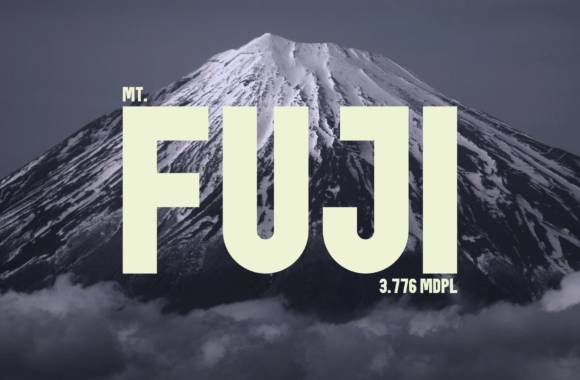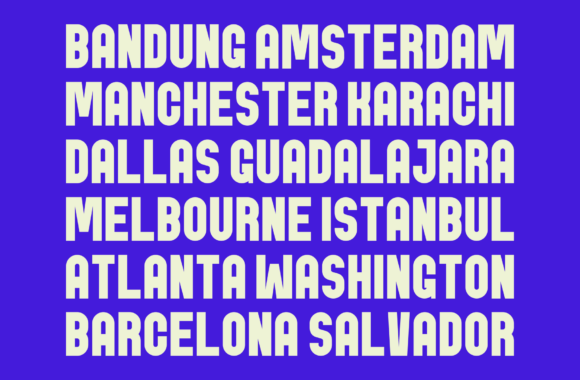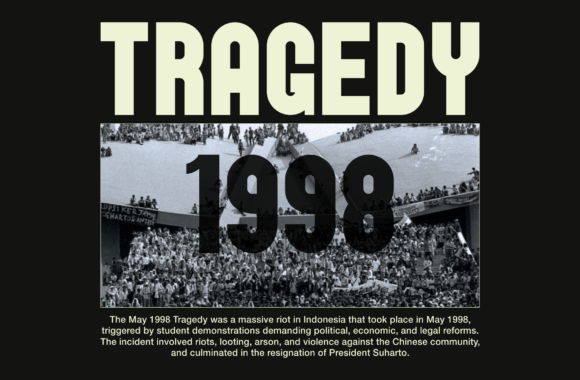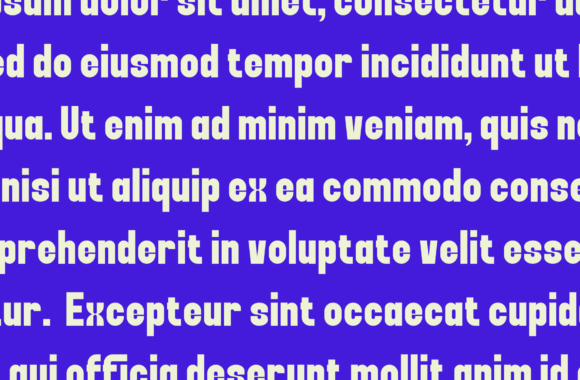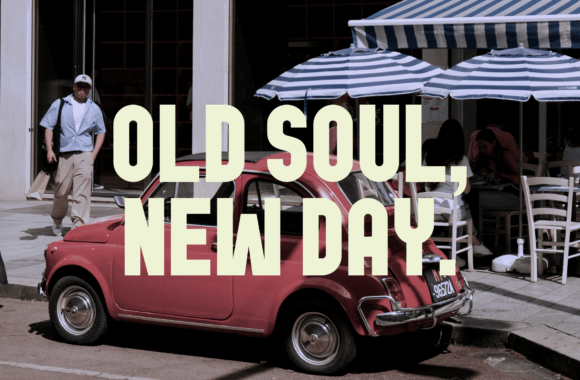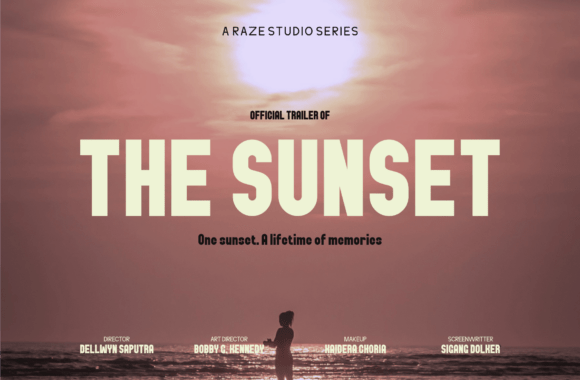
Introducing Godrop Font: A Bold and Geometric Display Typeface
In the world of typography, a well-designed font can make all the difference in conveying a message effectively. For designers and crafters looking for a modern and assertive tone, Godrop Font is an excellent choice. This bold, condensed display typeface is characterized by its strong geometric structure and high visual impact, making it ideal for headlines, posters, branding, and editorial design.
Design and Features
Godrop Font is designed with maximum legibility and presence in large-scale applications in mind. Its uppercase characters are uniform in width and height, offering a harmonious and compact visual rhythm. This feature makes it perfect for titles, headings, and other display purposes where a strong visual impact is desired. The font’s geometric structure gives it a modern and sleek look, while its boldness ensures that it commands attention.
One of the unique features of Godrop Font is its subtle stylistic flourishes in the lowercase letters. The curvature of the “k” and the stylized crossbar of the “x” add distinctive character to the overall typeface, setting it apart from other bold and condensed fonts. These flourishes not only add visual interest but also contribute to the font’s legibility and readability.
Numerals and Consistency
The numerals in Godrop Font follow the same bold and condensed aesthetic as the rest of the typeface, ensuring consistency across all typographic elements. This attention to detail is essential for designers who want to maintain a cohesive visual identity in their work. Whether you’re designing a poster, a brochure, or a website, Godrop Font’s consistent look will help you achieve a professional and polished look.
Versatility and Applications
Godrop Font’s solid form and minimalist design make it a versatile choice for designers seeking a contemporary and impactful typographic voice. Its applications are diverse, ranging from:
- Headlines and titles: Godrop Font’s boldness and geometric structure make it perfect for grabbing attention and conveying a message.
- Posters and flyers: The font’s strong visual impact and legibility make it ideal for large-scale applications.
- Branding and logos: Godrop Font’s modern and assertive tone make it suitable for brands that want to convey a sense of confidence and professionalism.
- Editorial design: The font’s readability and legibility make it perfect for articles, magazines, and other written content.
Why Choose Godrop Font?
There are several reasons why designers and crafters might choose Godrop Font for their projects:
- Unique and distinctive look: Godrop Font’s subtle stylistic flourishes and geometric structure set it apart from other fonts.
- High legibility and readability: The font’s boldness and clear design make it easy to read, even in large-scale applications.
- Versatility: Godrop Font can be used in a variety of contexts, from headlines to body text.
- Modern and assertive tone: The font’s geometric structure and boldness convey a sense of confidence and professionalism.
Godrop Font is an excellent choice for designers and crafters looking for a bold, condensed display typeface with a strong geometric structure and high visual impact. Its unique features, versatility, and legibility make it perfect for a wide range of applications, from headlines and posters to branding and editorial design. With Godrop Font, you can add a modern and assertive tone to your work and convey a sense of confidence and professionalism.